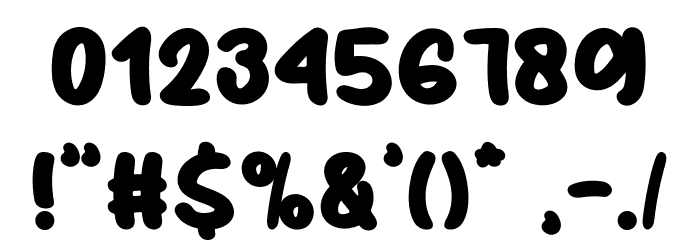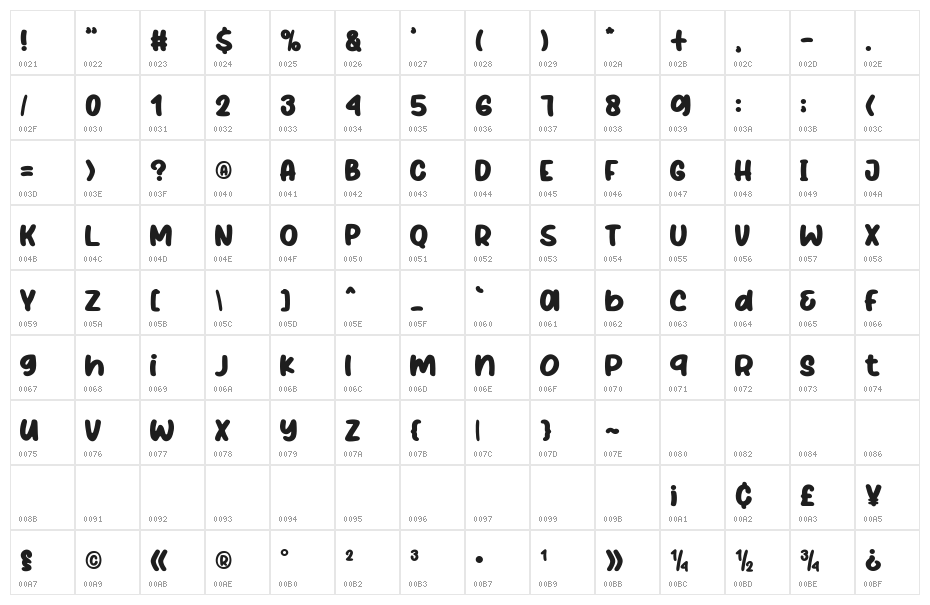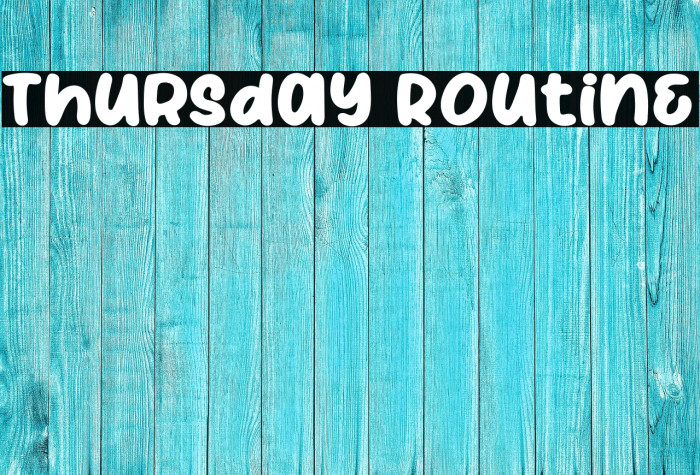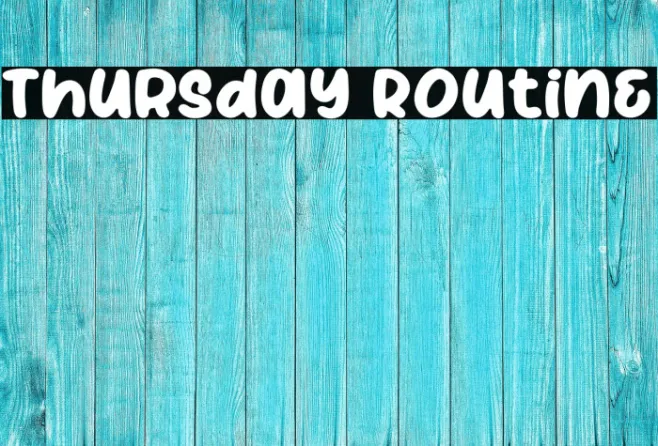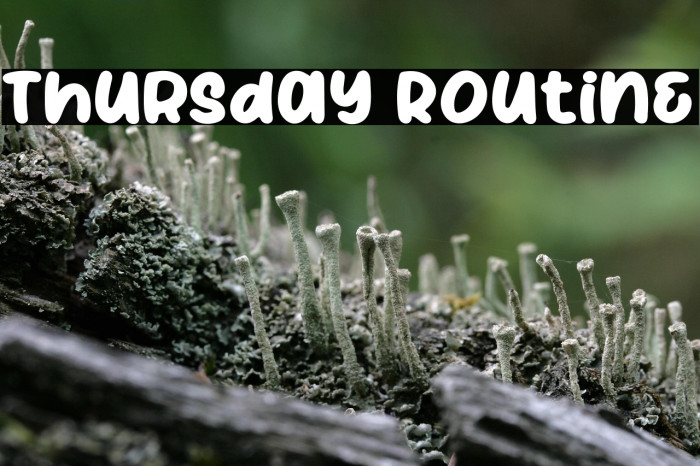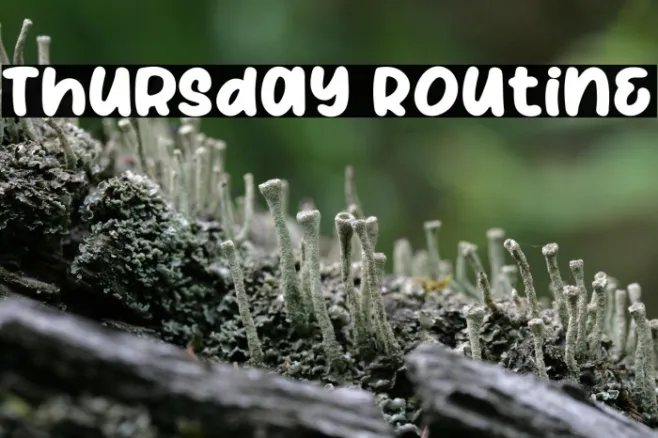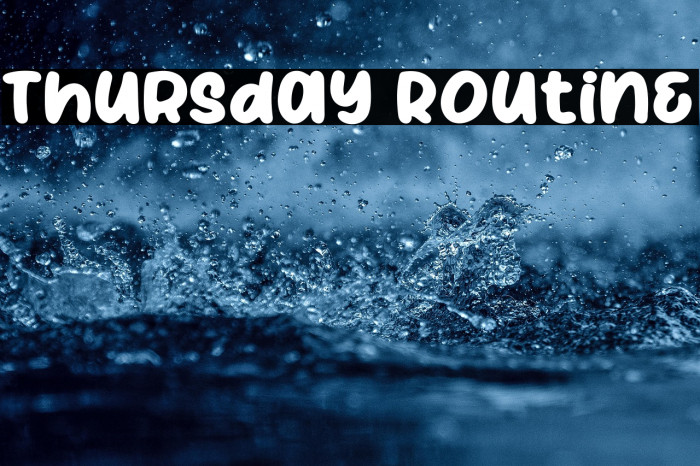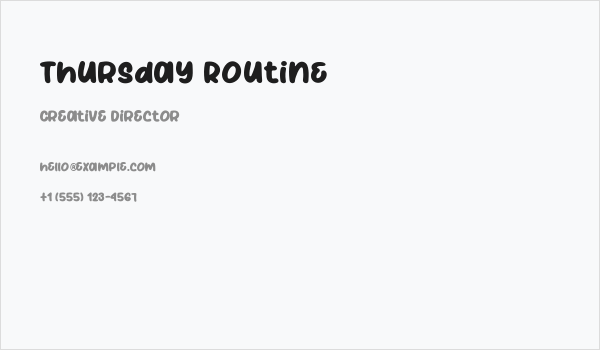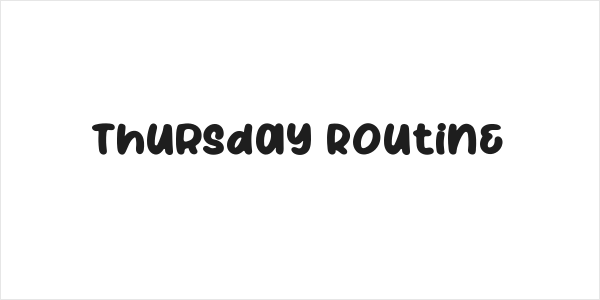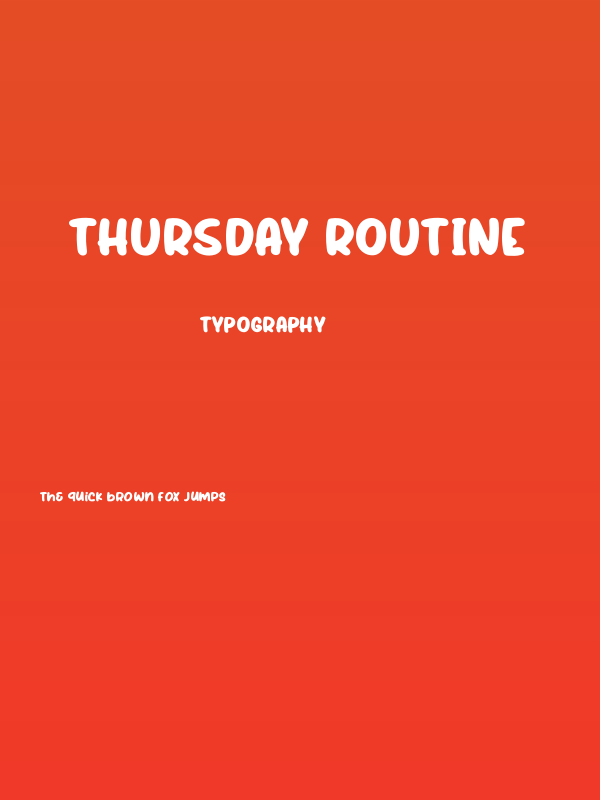
Thursday Routine Font
Thursday Routine Description
This font features a bold, playful style with rounded edges and a bubbly appearance. The characters are thick and have a consistent stroke width, giving them a strong presence on the page. The uppercase and lowercase letters maintain a uniform height, contributing to a cohesive look. The numbers and special characters follow the same design principles, ensuring visual harmony across all elements. This font's whimsical nature makes it ideal for projects that require a fun and engaging aesthetic.
| Proposed Projects | Ideal for children's books, playful branding, party invitations, and casual social media graphics. |